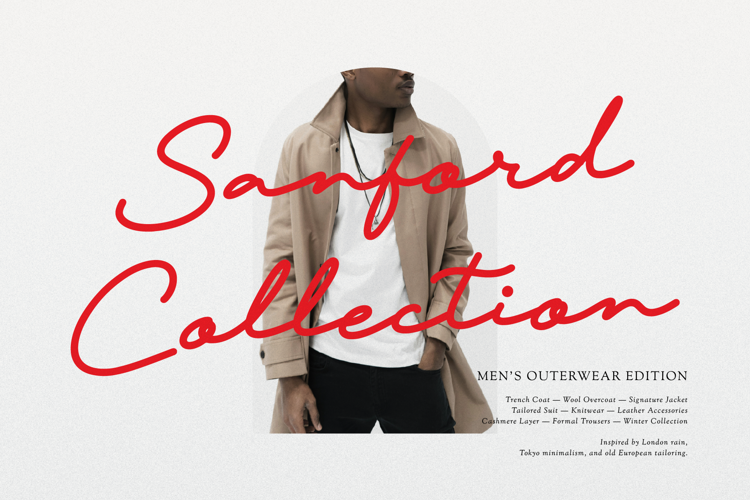
Nafolle Font
Nafolle | Monoline Signature, is suitable for any projects such as: logos, branding projects, homeware designs, product packaging, mugs, quotes, posters, shopping bags, t-shirts, book covers, name card, invitation cards, greeting cards, label, photography, watermark, special events, and all your other lovely projects that need a Script taste.